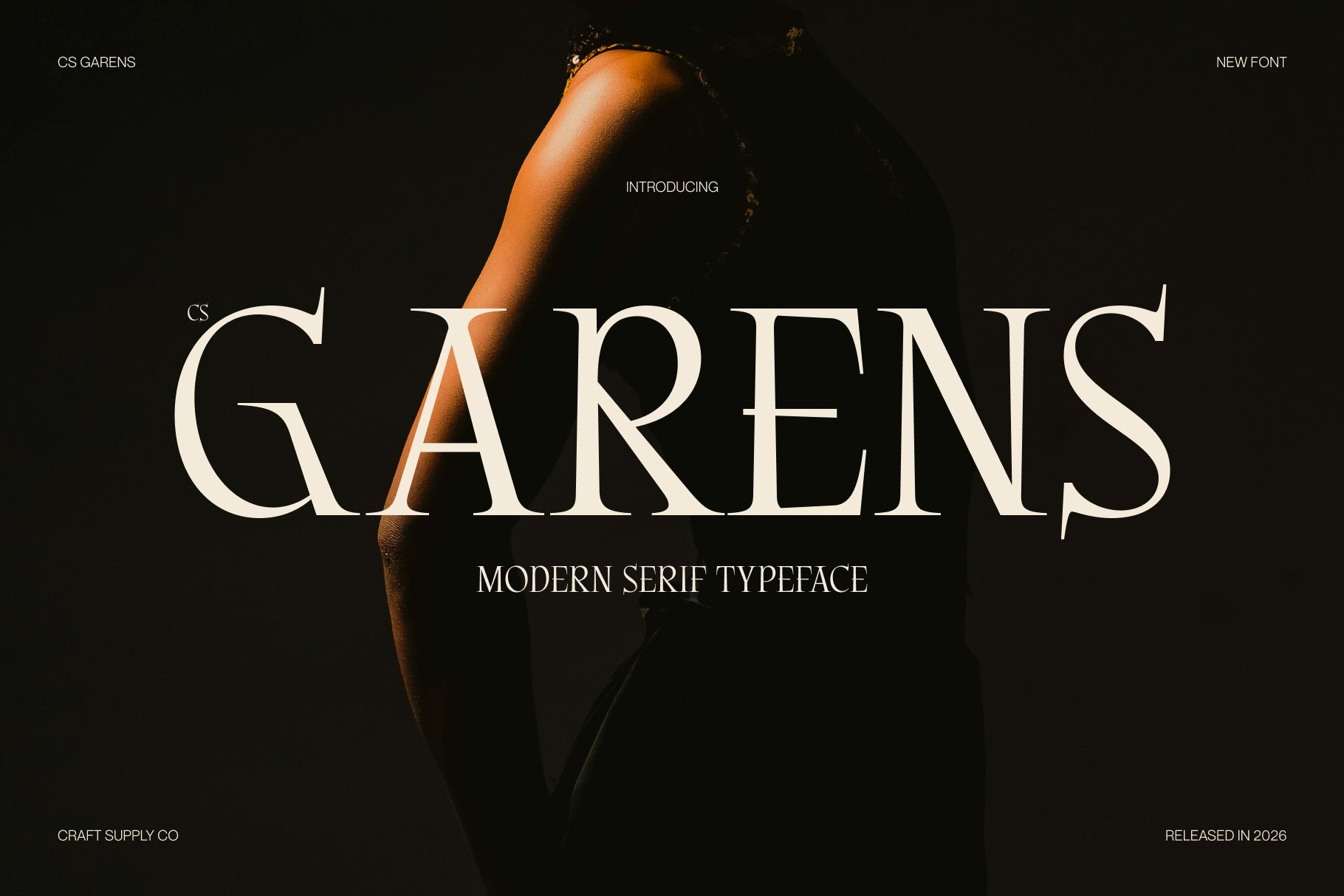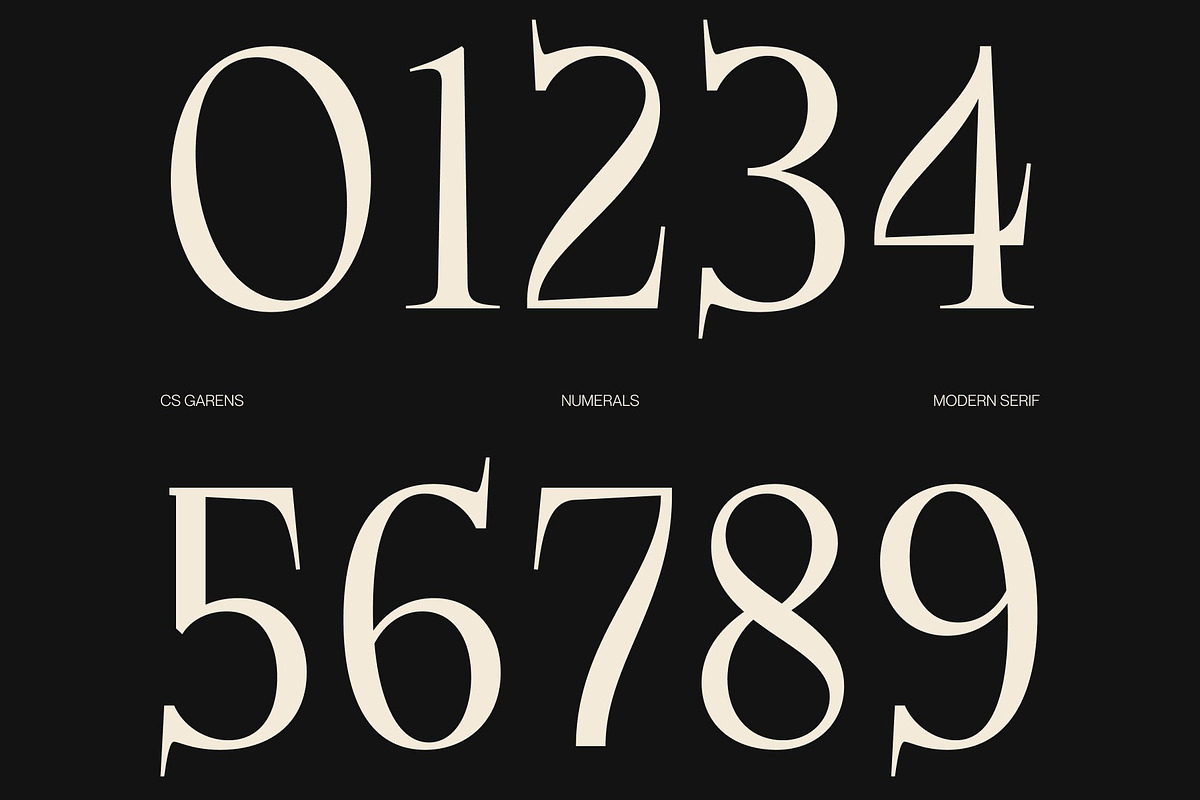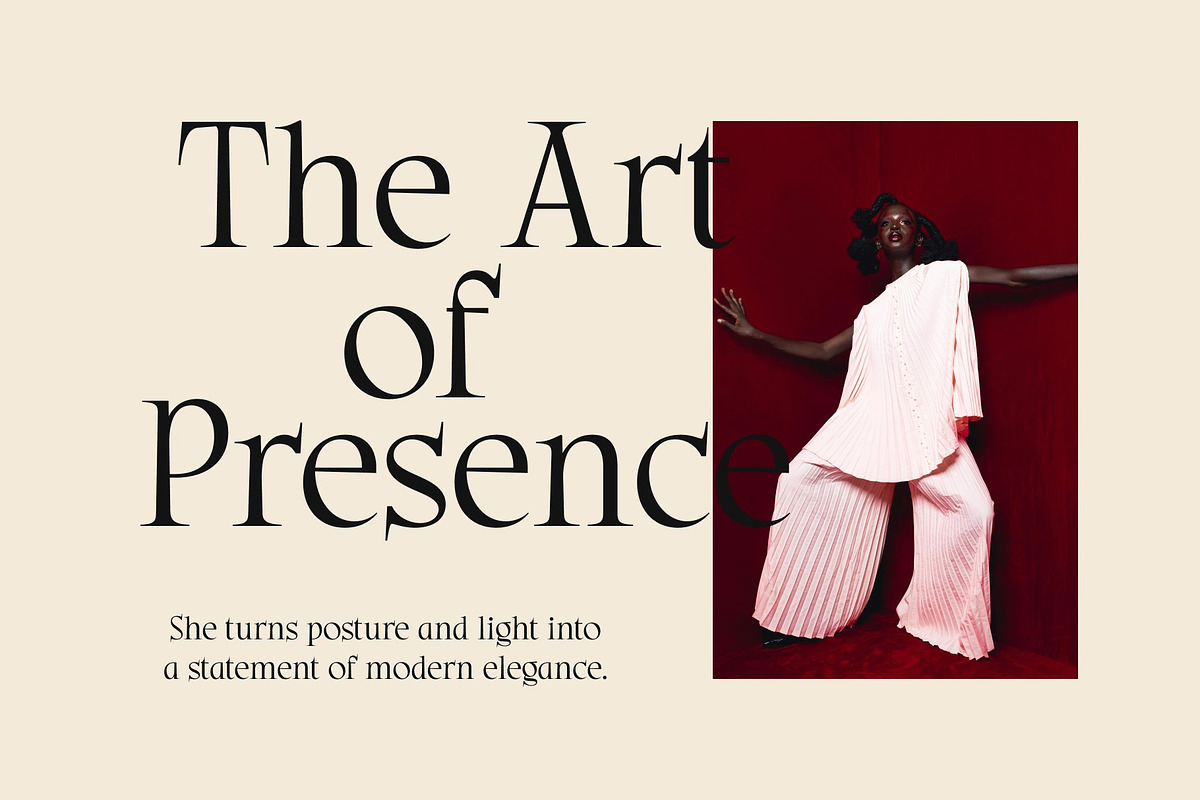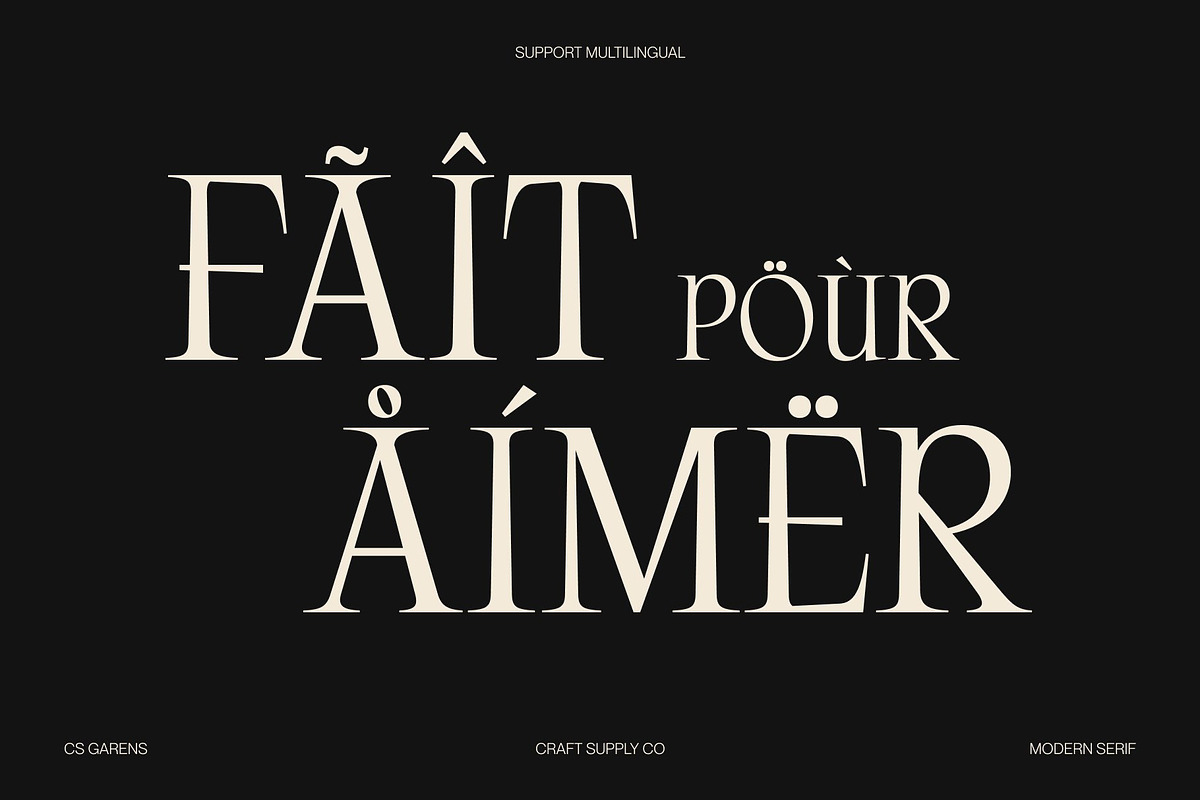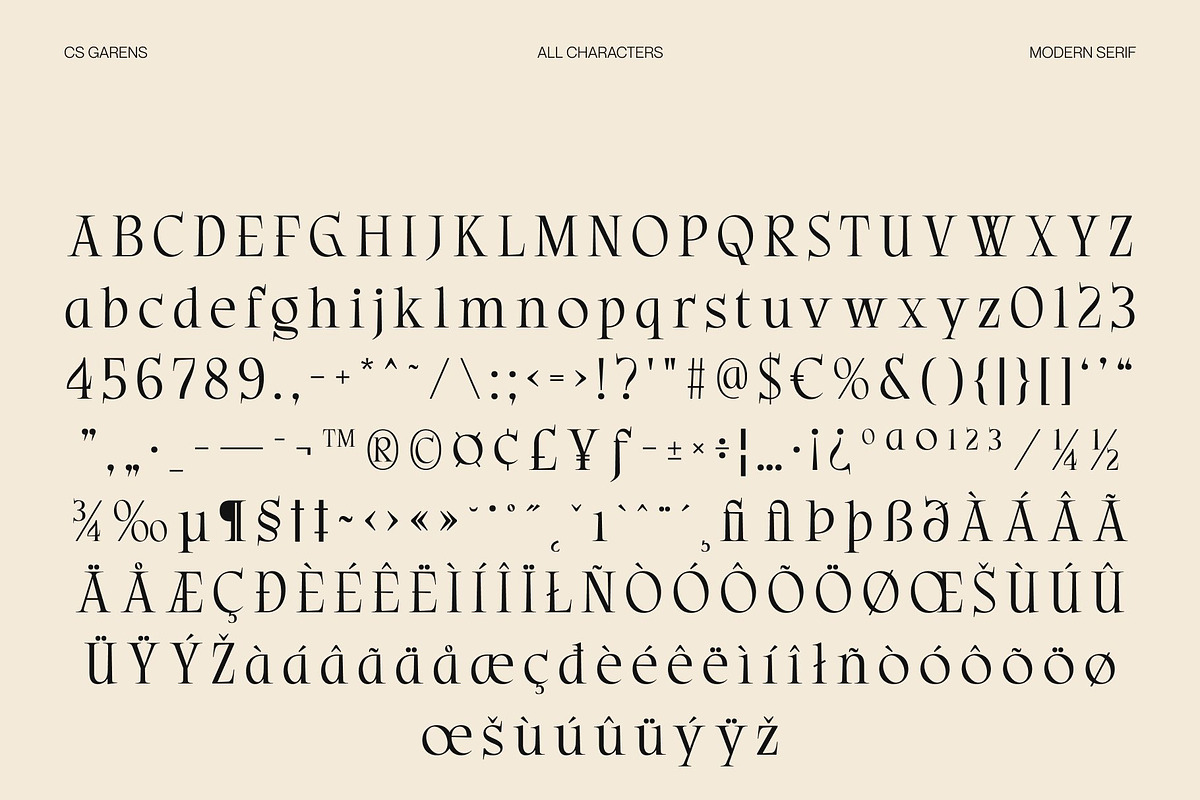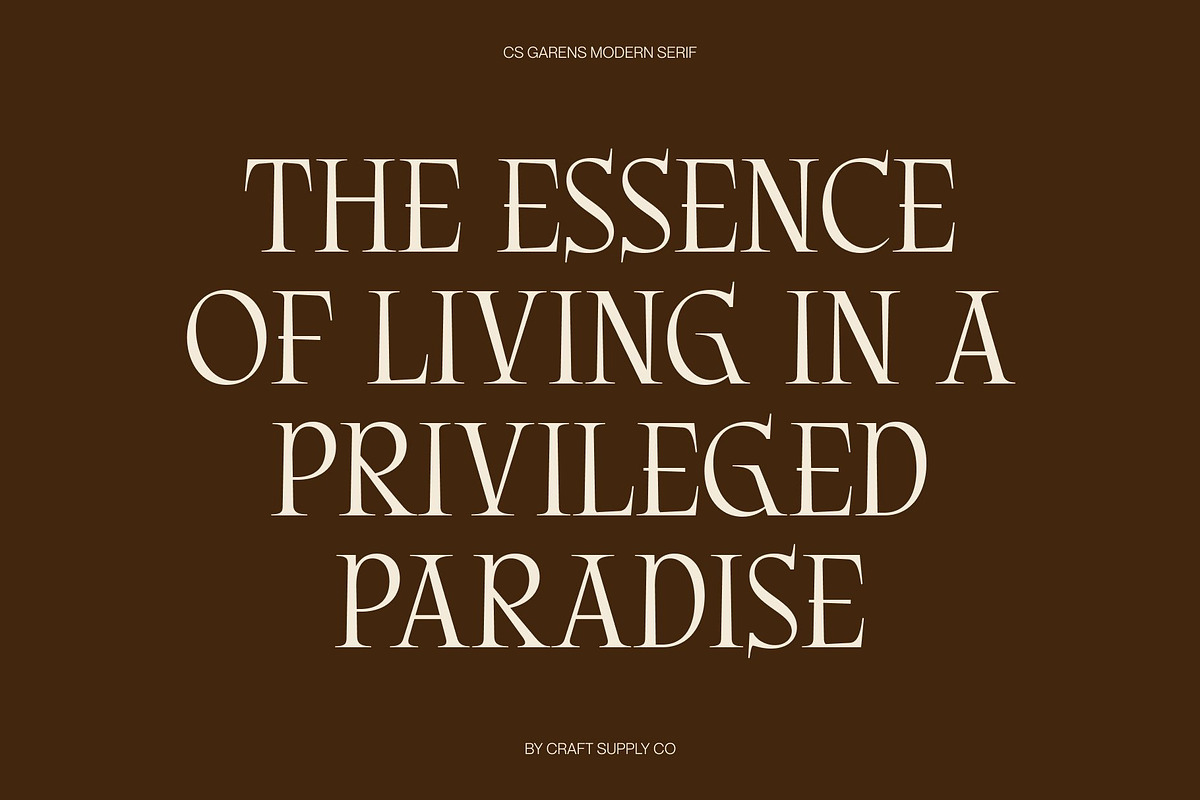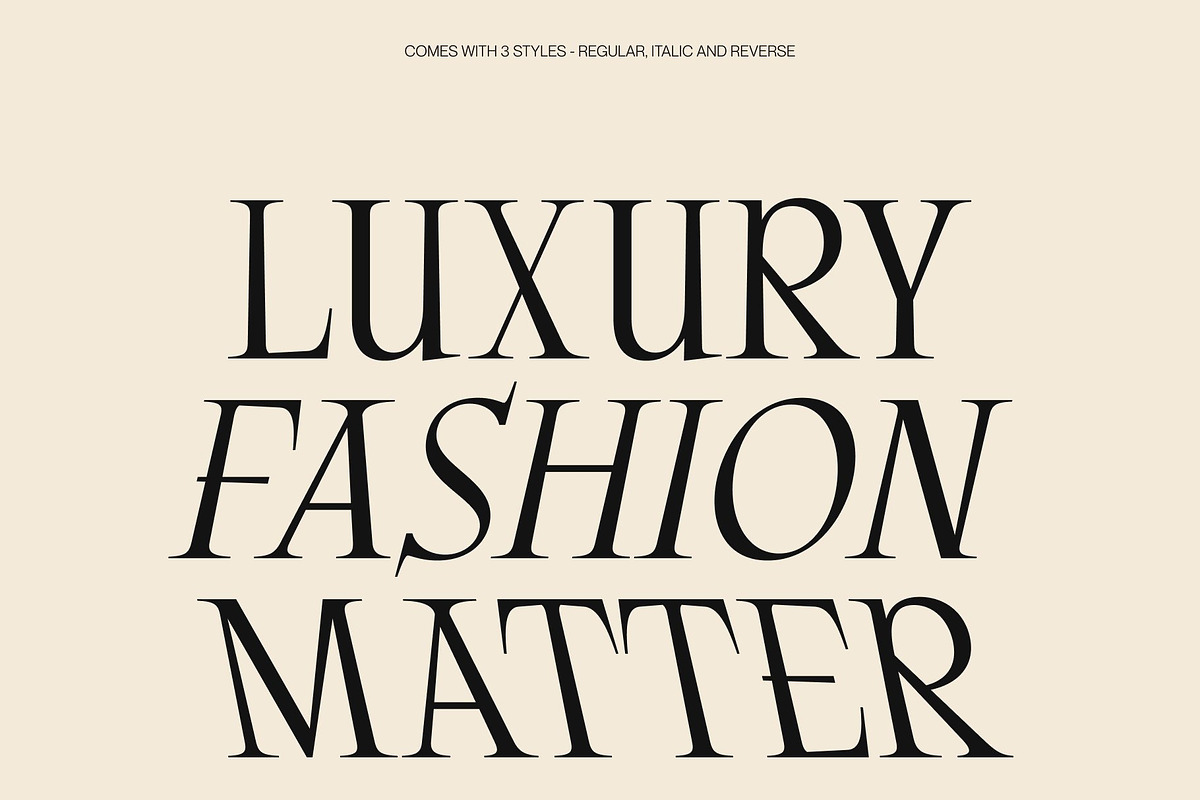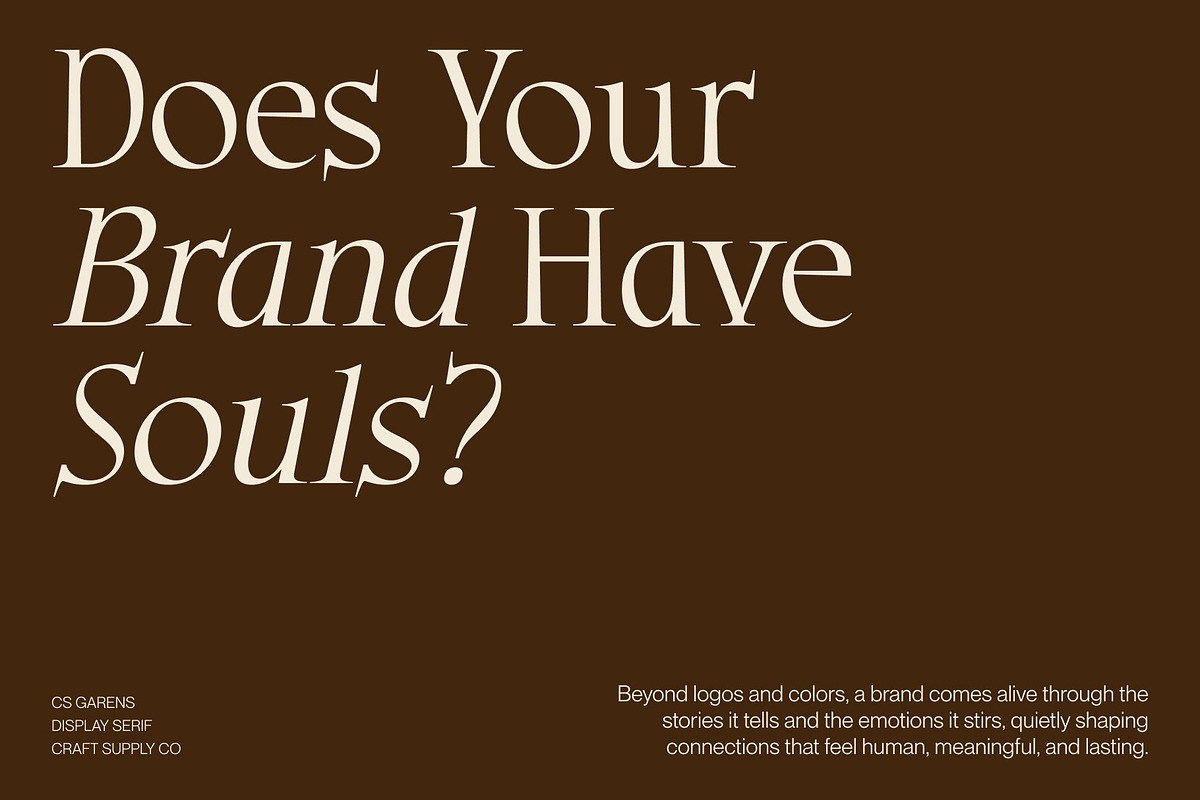
CS Garens – Modern Serif Font
CS Garens – Modern Serif with Luxurious Classic Elegance
Modern Serif with Contemporary Sophistication This is a modern serif font that blends contemporary style with timeless elegance. Designed with refined proportions and graceful structure, this typeface delivers a luxurious visual presence while maintaining a classic charm. It is crafted for designers who seek typography that feels polished, stylish, and enduringly sophisticated.
Pointed Details with Distinctive Character The stylish pointed ends give this font a unique personality that sets it apart from traditional serif fonts. These sharp details introduce elegance and visual rhythm, creating a harmonious balance between classic refinement and modern expression. The result is typography that feels bold, graceful, and highly memorable.
Luxurious Style with Fresh Modern Appeal This font combines the richness of classic serif typography with a fresh contemporary touch. Its clean structure and elegant details allow it to adapt beautifully across modern layouts while preserving a sense of prestige and sophistication. This balance makes the font suitable for both minimal and expressive visual styles.
Perfect for Posters, Branding, and Contemporary Design From luxury branding and editorial layouts to posters and modern campaigns, this font provides a versatile typographic solution. Its combination of classic elegance, pointed stylistic details, and contemporary freshness ensures your designs appear refined, stylish, and visually captivating.